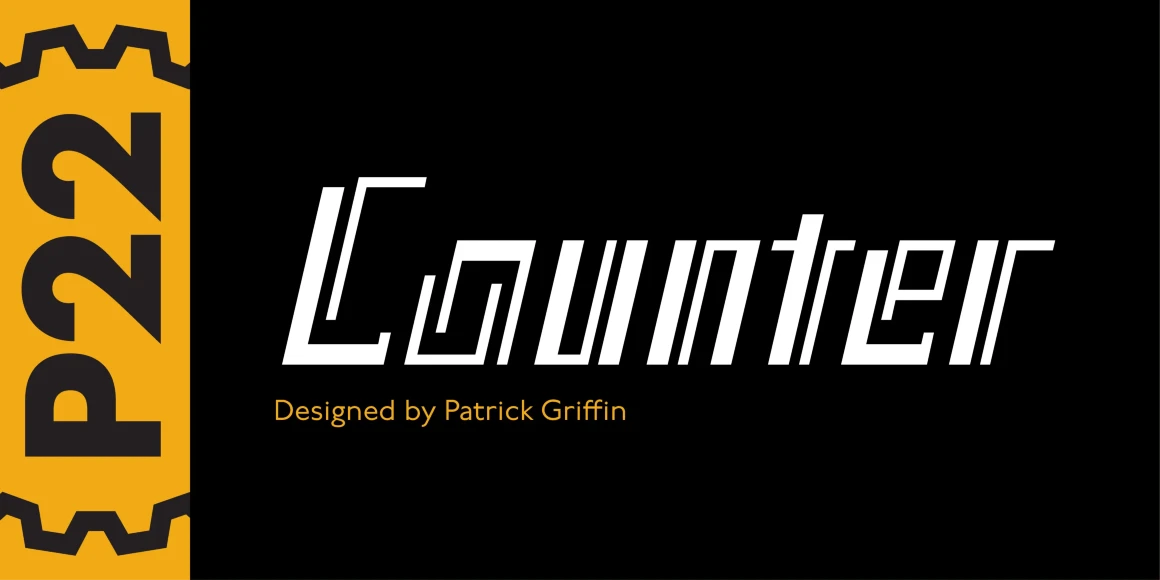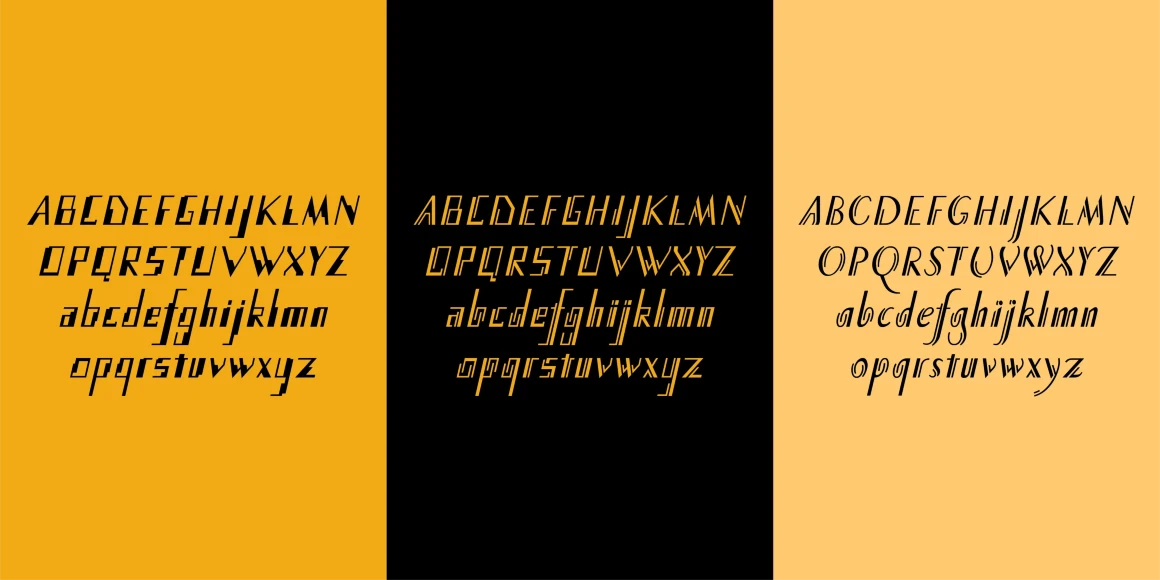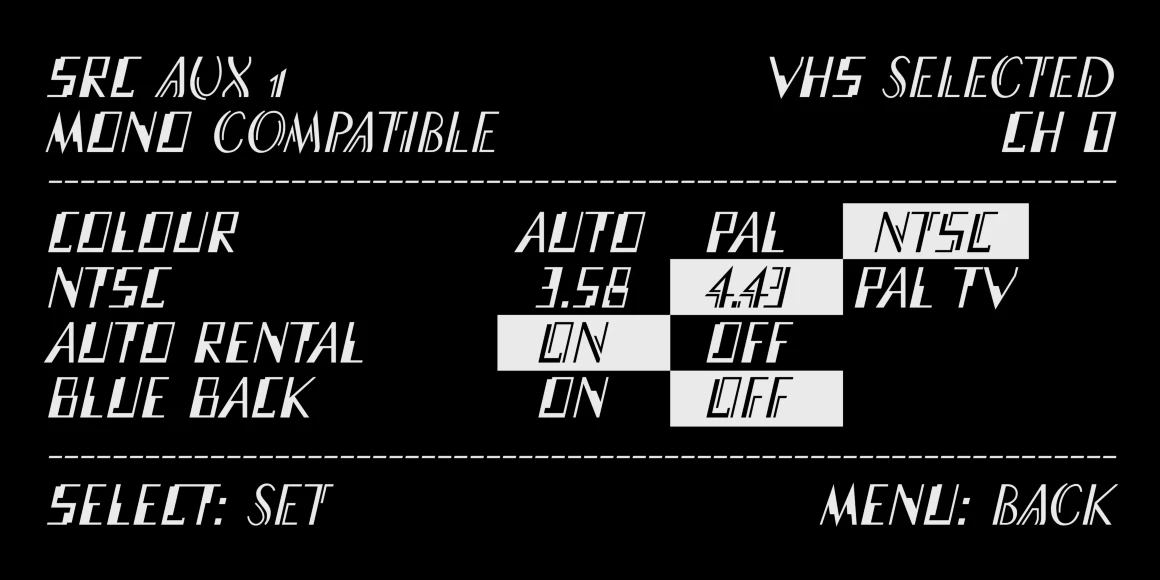
Counter
Designed by Canada Type principal Patrick Griffin, P22 Counter is a very geometric font based on parallel strokes. The Cursive and Swash Alts styles were based on the idea for an uncredited film face called Whitley, published by a little known English typesetting house in the early 1970s. Line & Hack are extrapolations of the above.
Designed by Patrick Griffin
Counter Cursive
Counter Hack
Counter Line